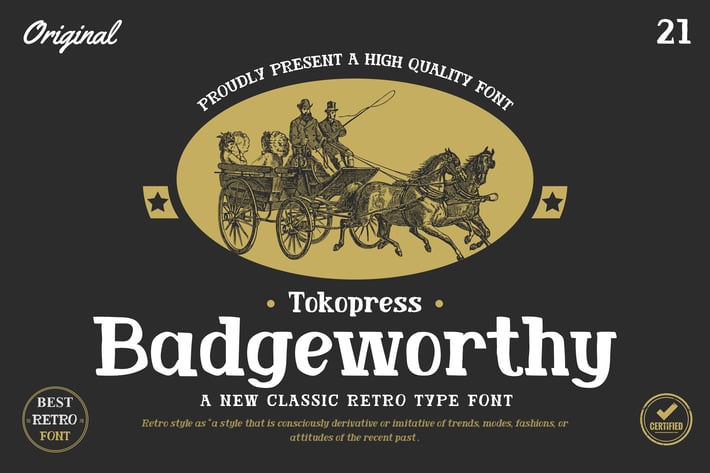
Badgeworthy - Retro Font
Badgworthy - Retro Font
Badgeworthy is a retro-inspired display typeface that channels vintage craftsmanship with a bold, assertive voice. Its structured letterforms, sharp transitions, and sturdy slab serifs evoke old-school signage, beer branding, and heritage packaging. With a solid vertical stance and classic Americana vibe, this typeface is tailor-made for projects that demand authentic, time-tested character.
The font’s high contrast and compact proportions make it stand out in logos, ticket designs, and posters—anywhere you need a memorable, masculine, and throwback feel. It blends visual weight with typographic nostalgia, making it a standout in the retro design toolkit.
From barbershop labels to motorcycle event posters, Badgeworthy fuels brand identity with bold visual confidence. Use it for badge logos, event tickets, coffee roasters, music festivals, or handcrafted products. Its vintage vibe delivers emotional impact, connecting instantly with audiences who love authenticity, tradition, and craftsmanship.
This is the go-to font for designers building rugged, reliable, and nostalgic brand visuals that still feel sharp and contemporary.
Key Features
Here’s why Badgeworthy fits your next project :
- Retro slab serif with punchy contrast and industrial charm
- Designed for logos, beer labels, signage, ticket layouts, and outdoor gear packaging
- Strong vertical strokes for assertive branding and sharp composition
- Perfect balance between nostalgia and readability—especially in bold, condensed contexts